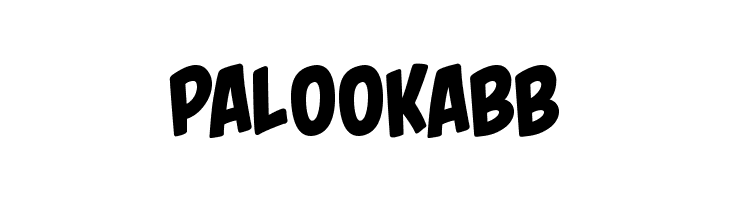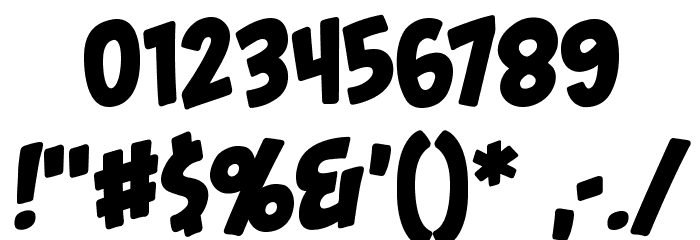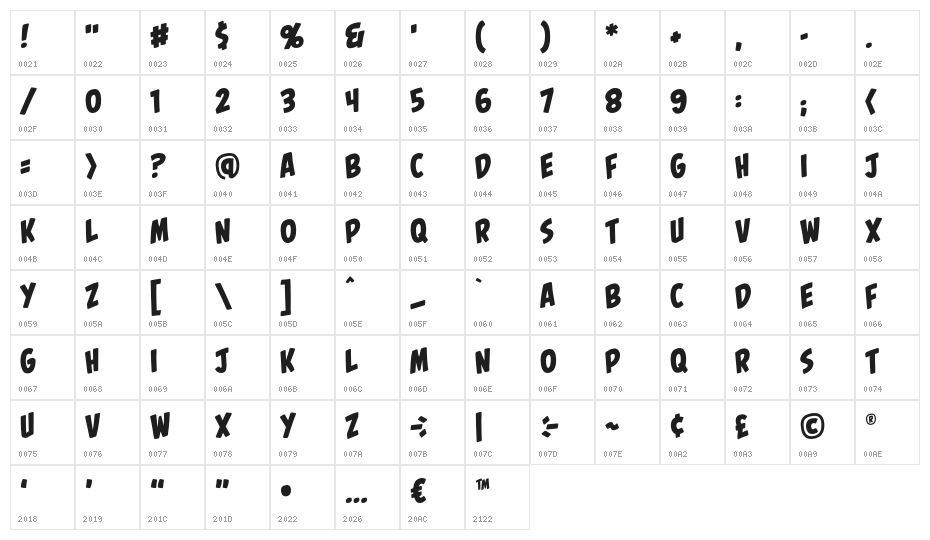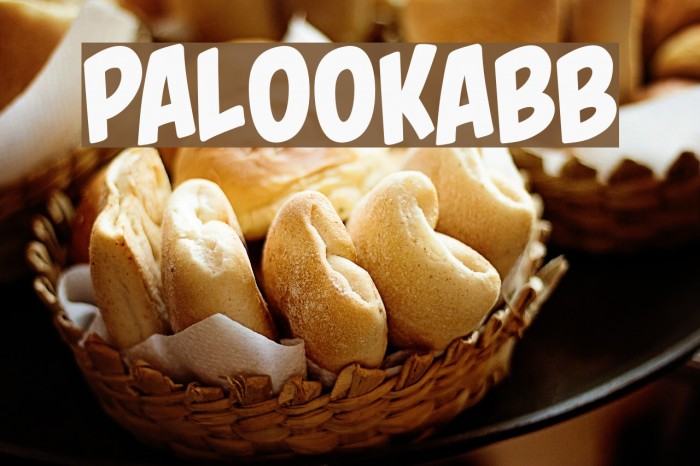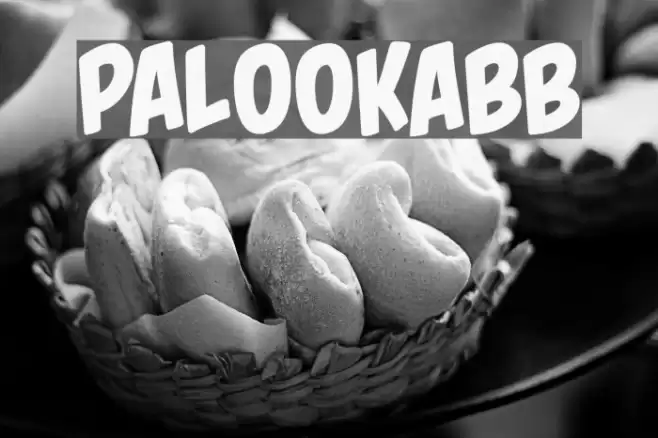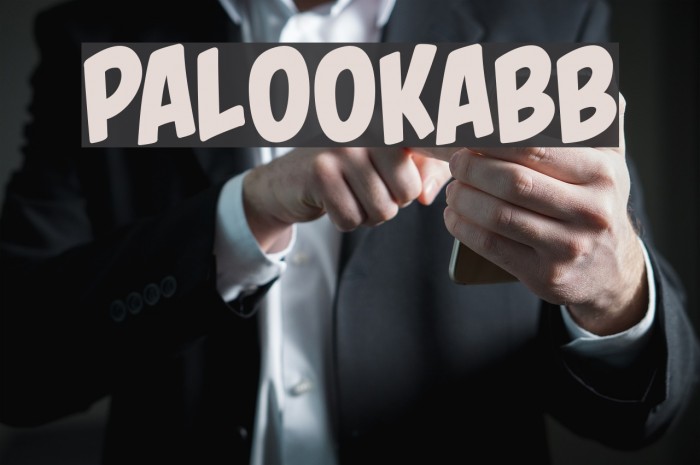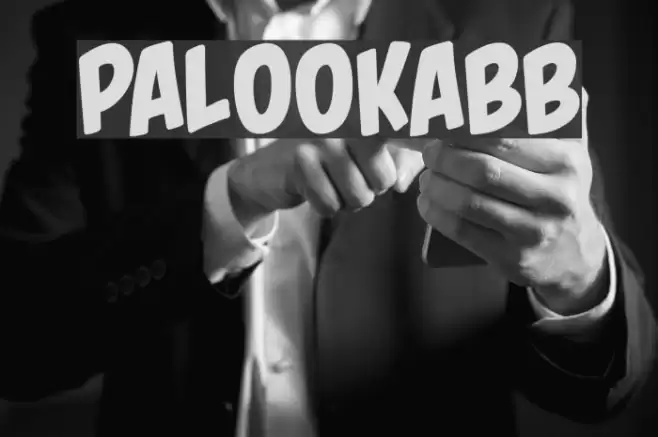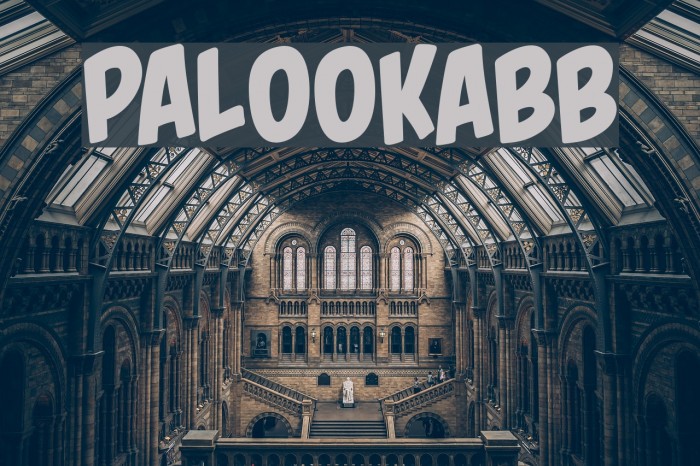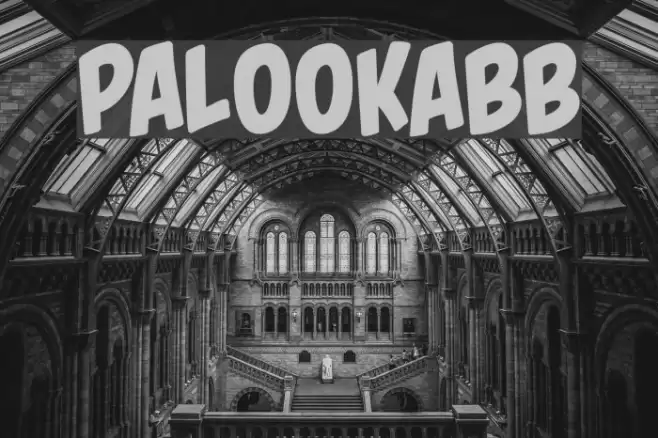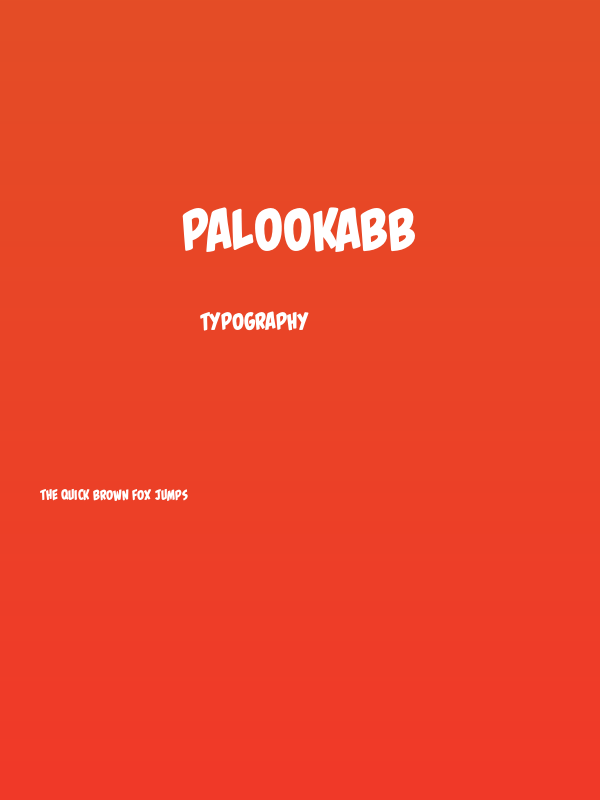
PalookaBB Font
PalookaBB Description
This font features a bold and playful design with exaggerated curves and a slightly irregular baseline, giving it a lively and energetic appearance. The characters are thick and rounded, creating a sense of friendliness and approachability. The uppercase and lowercase letters maintain a consistent style, with a slight slant that adds to the dynamic feel. The numbers and special characters are equally bold, ensuring readability and visual impact. This font is ideal for projects that require a fun and informal touch, such as children's books, comic strips, or playful branding.
| Overall Style | Playful, Energetic |
| Proposed Projects | Ideal for children's books, comic strips, playful branding, and informal designs. |